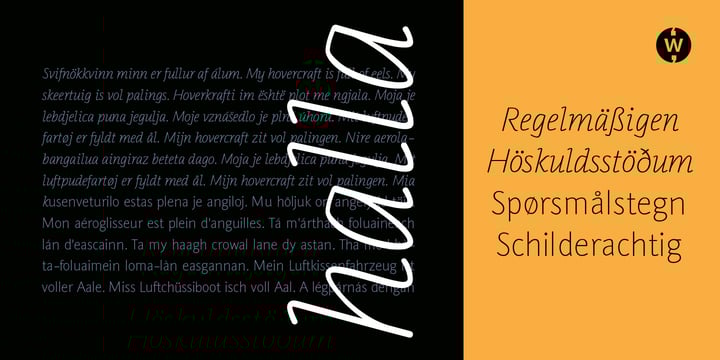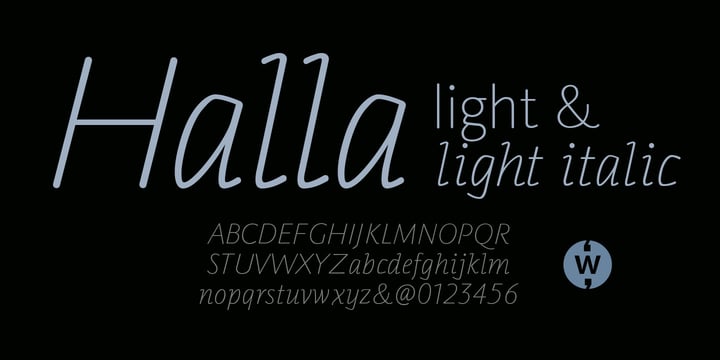
Halla
by Wilton Foundry
The Halla Font Family was designed by Robbie de Villiers and published by Wilton Foundry. Halla contains 2 styles and family package options.
Creating Halla was a bit unusual for me since I started out creating the italic version first and that inspired the name Halla, meaning to tilt in Icelandic. It is also a fairly common female name in Iceland. “Halla” is derived from old Norse word “hallr” = 'flat stone, rock' or 'sloping, leaning to one side' Halla is a true italic inspired by handwriting and mechanical type. The combination of Light and Italic makes Halla ideal for advertising, branding, signage, packaging and editorial design.